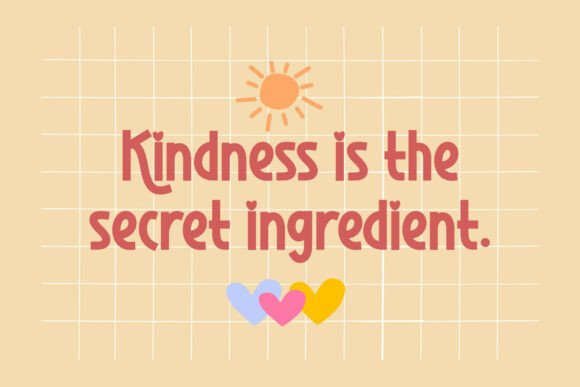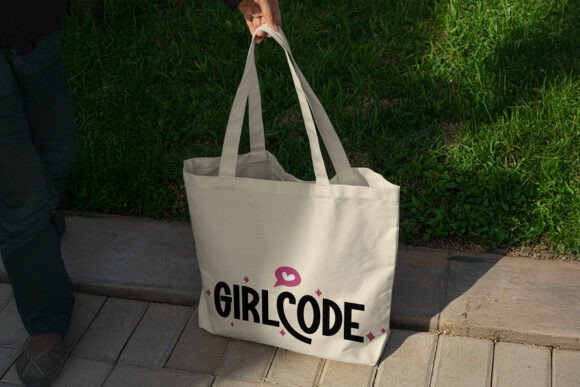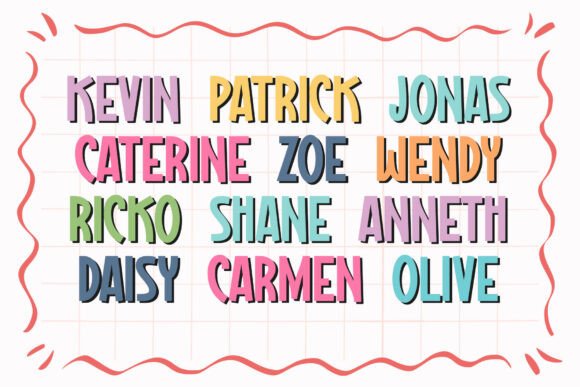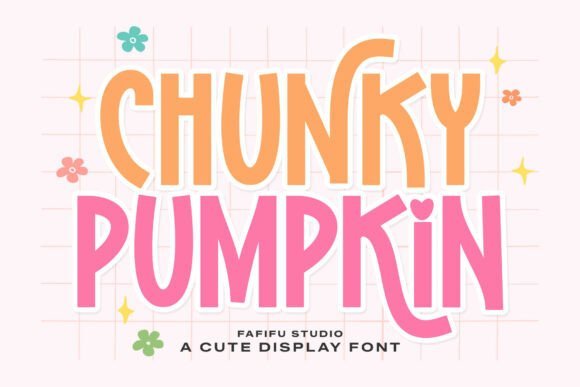
Introduction to Chunky Pumpkin Font
Introducing Chunky Pumpkin – an effervescent display font with a cheerful flair.
Designed to infuse each project with delight, Chunky Pumpkin flaunts voluptuous, smooth contours and a waggishly jovial spirit ensuring a friendly, inviting aura that’s teeming with life Ideal for children’s book illustrations, festive nursery dΓ©cor, animated birthday invites, or effervescent social media graphics, the lively and handcrafted appeal of Chunky Pumpkin effortlessly distinguishes your work.
Key Features of Chunky Pumpkin Font
Why Choose Chunky Pumpkin Font?